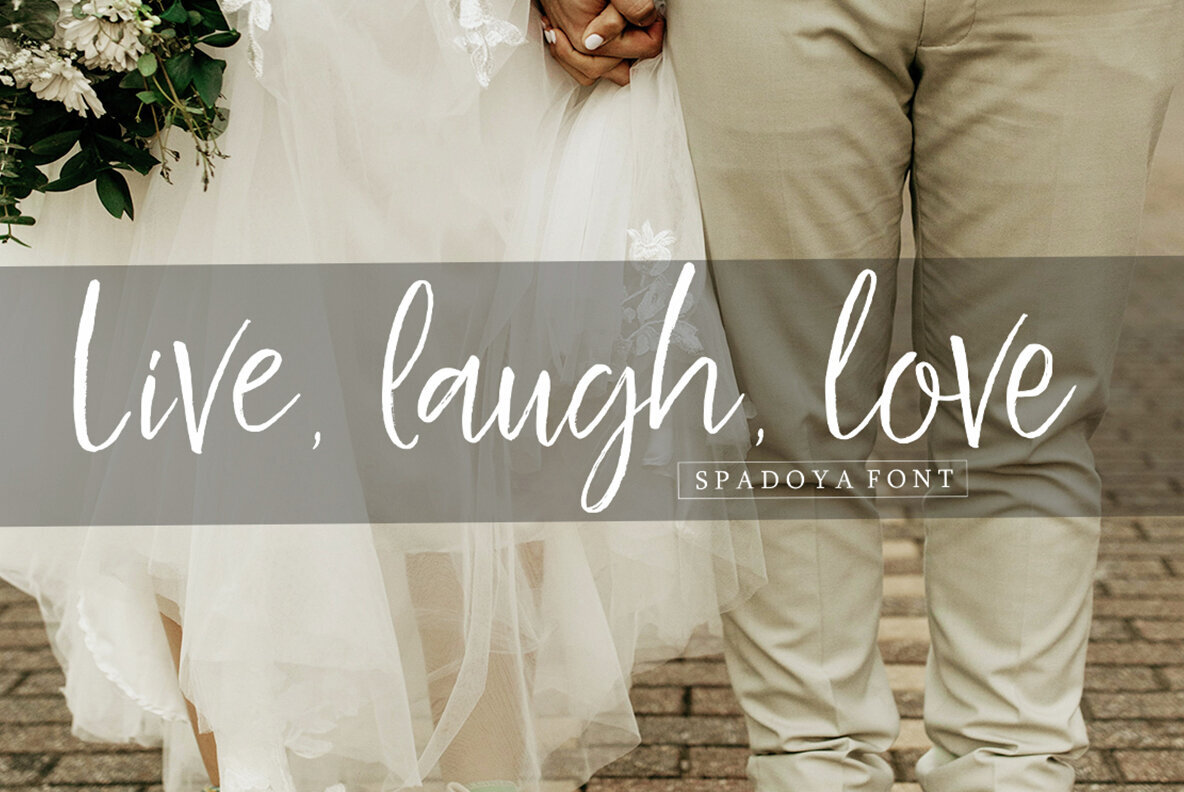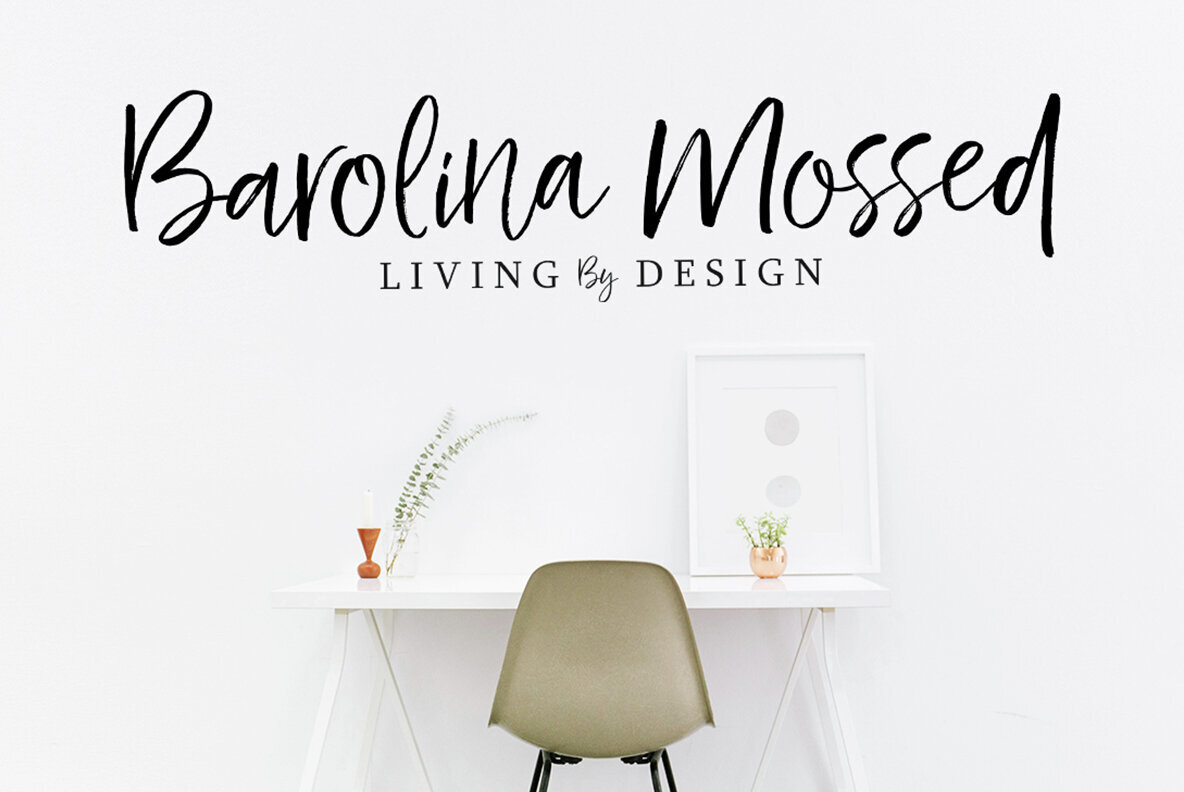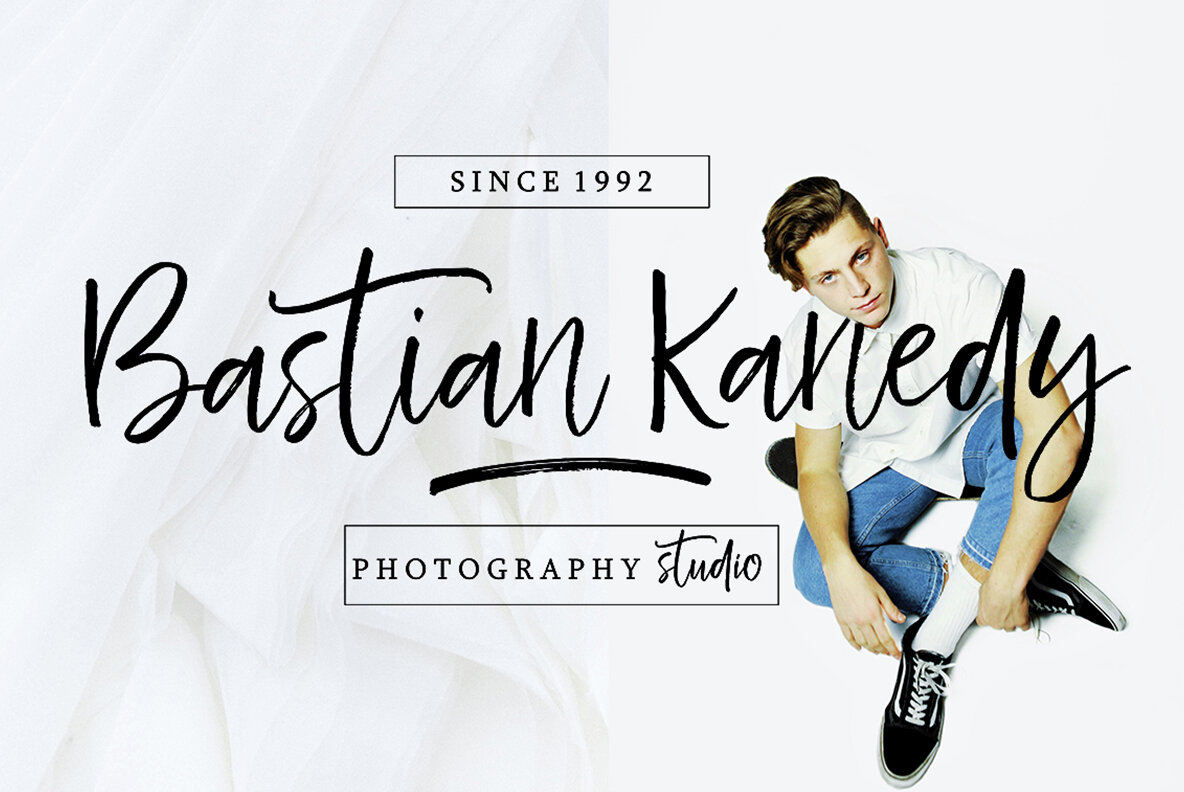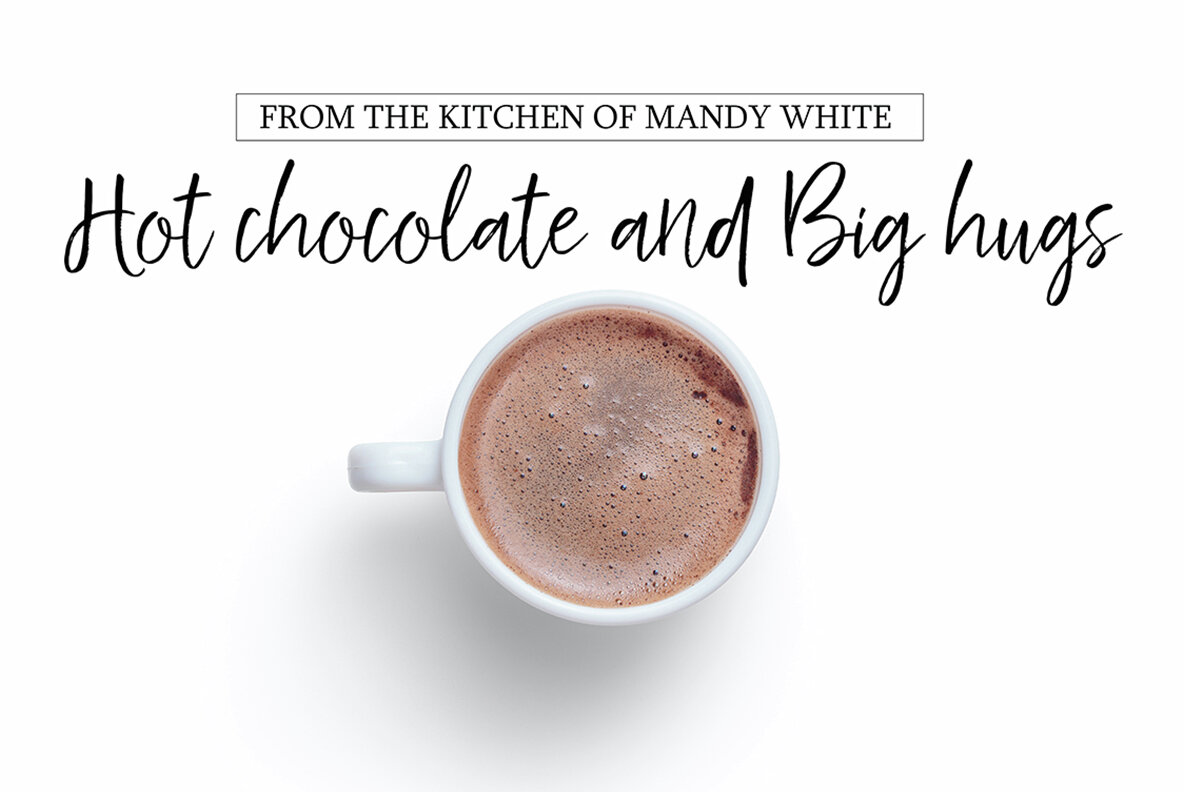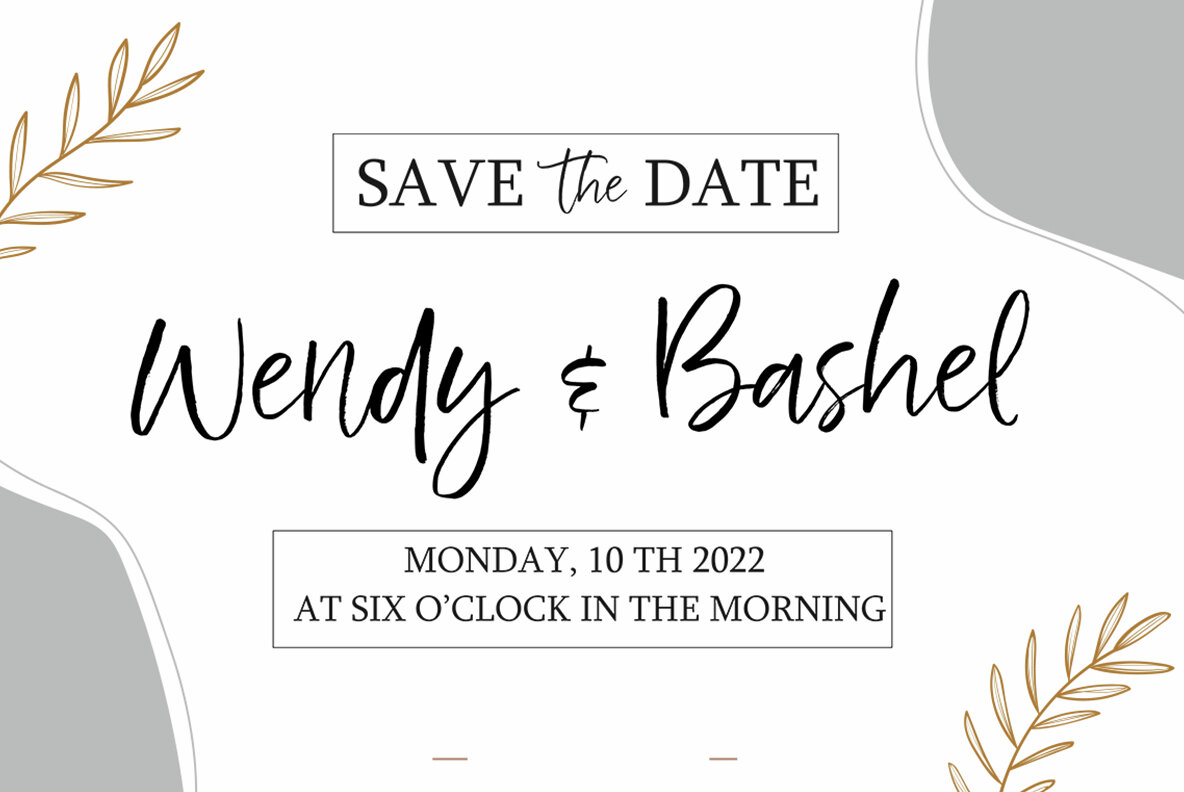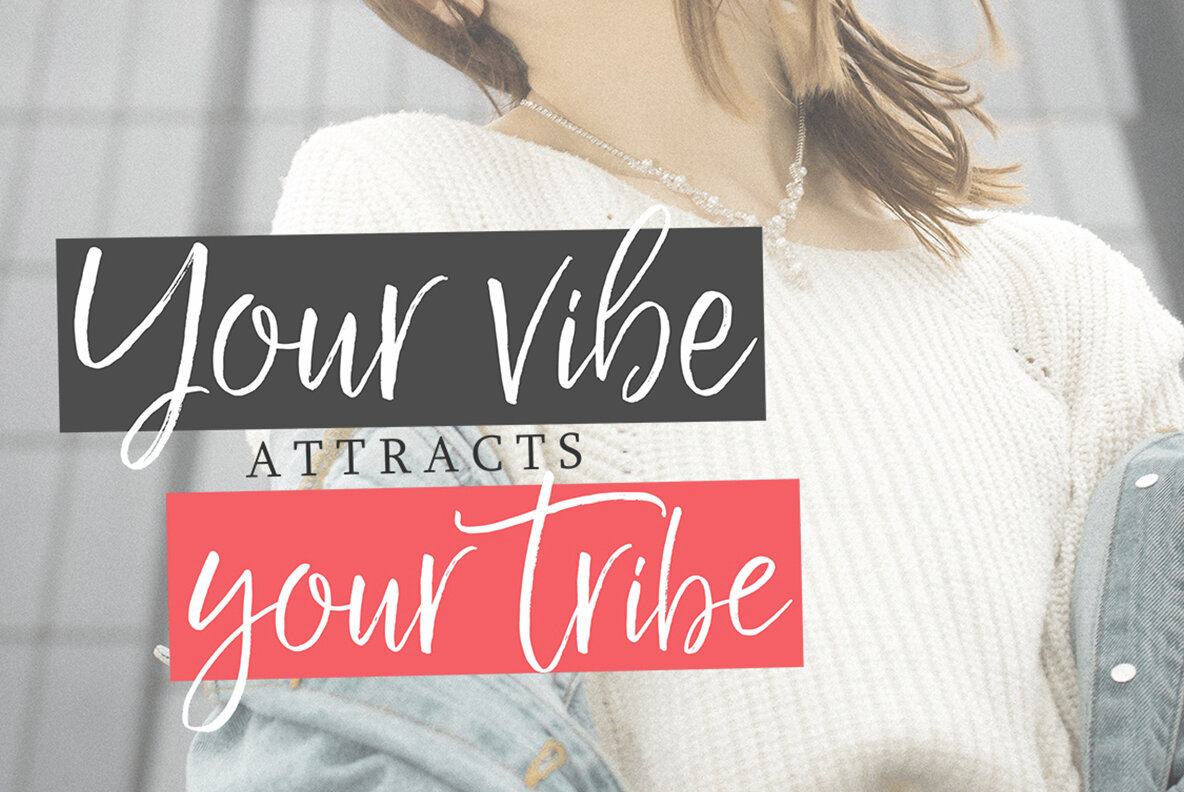
Spadoya Font
Spadoya is a distinctive hand-brushed font that brings the authentic touch of brush and ink to your designs. Perfect for bold watercolor themes or handwritten projects, this typeface suits a variety of creative applications, including blog titles, posters, wedding invitations, t-shirts, clothing lines, book covers, business cards, greeting cards, branding, and merchandise.
The font offers a comprehensive character set, featuring uppercase, lowercase, alternates, ligatures, punctuation, numbers, and multilingual support. Additionally, Spadoya includes a complementary swash that harmonizes perfectly with Spadoya Regular, allowing for exceptional typographic results. Unleash your creativity by integrating Spadoya into your next design project.